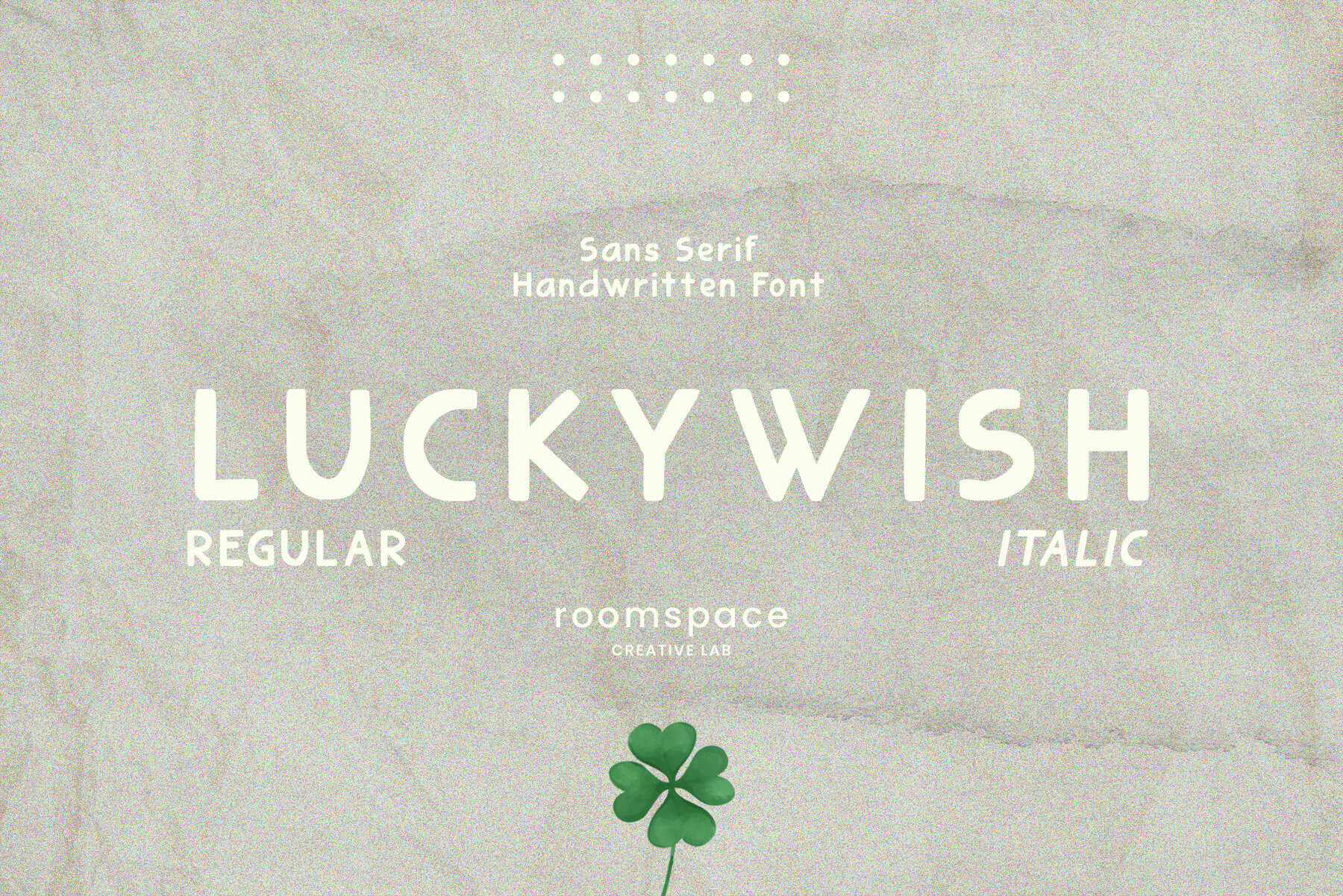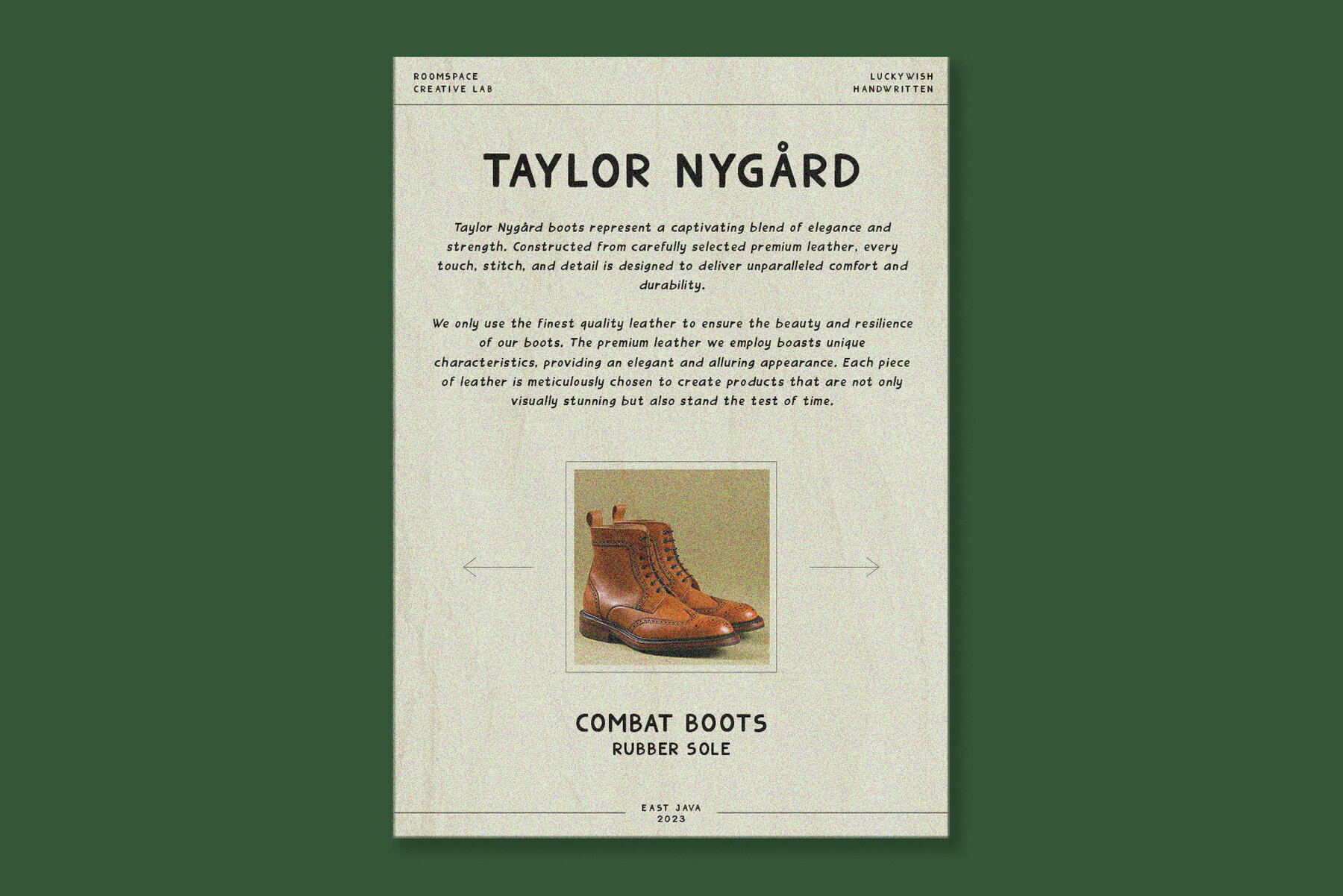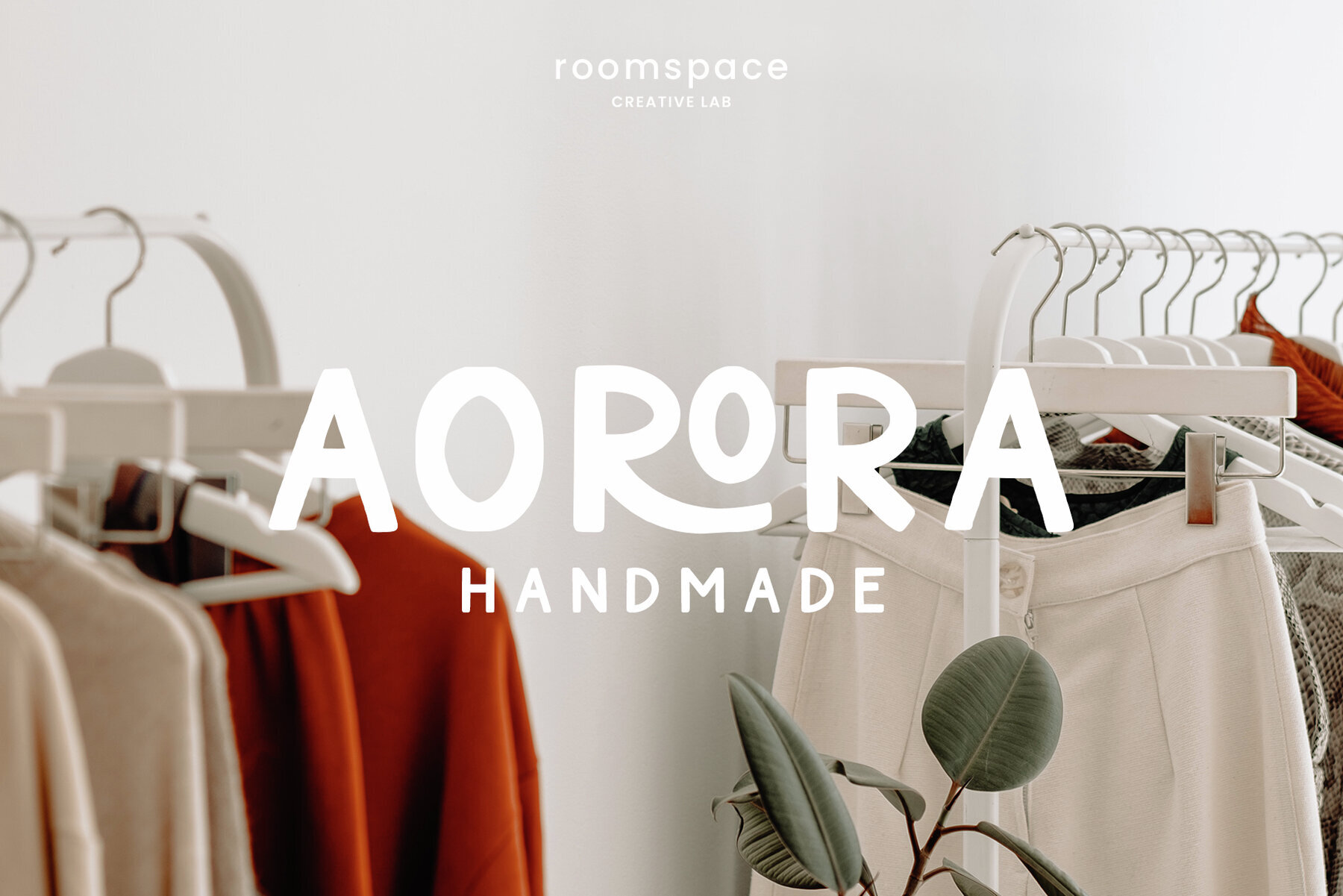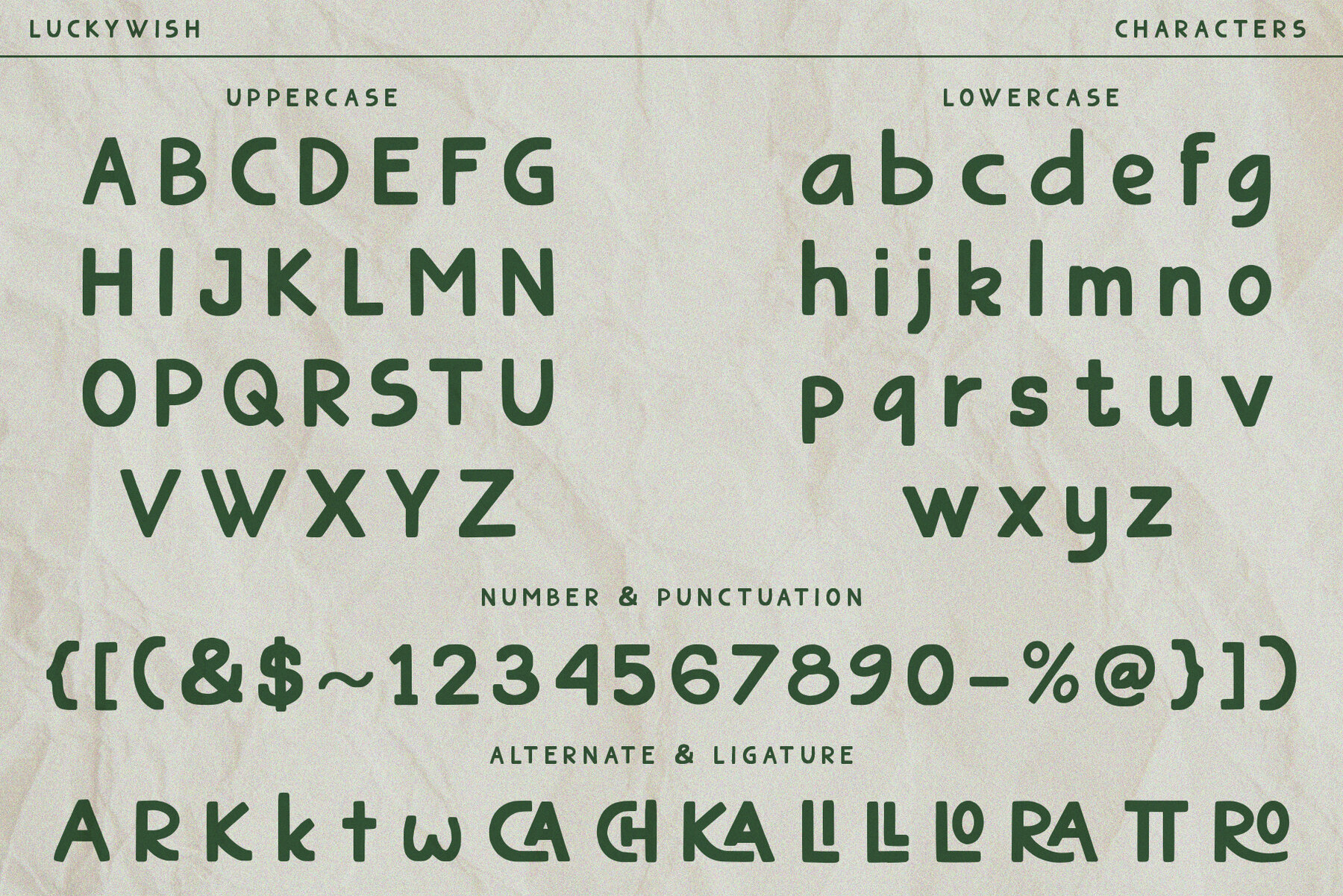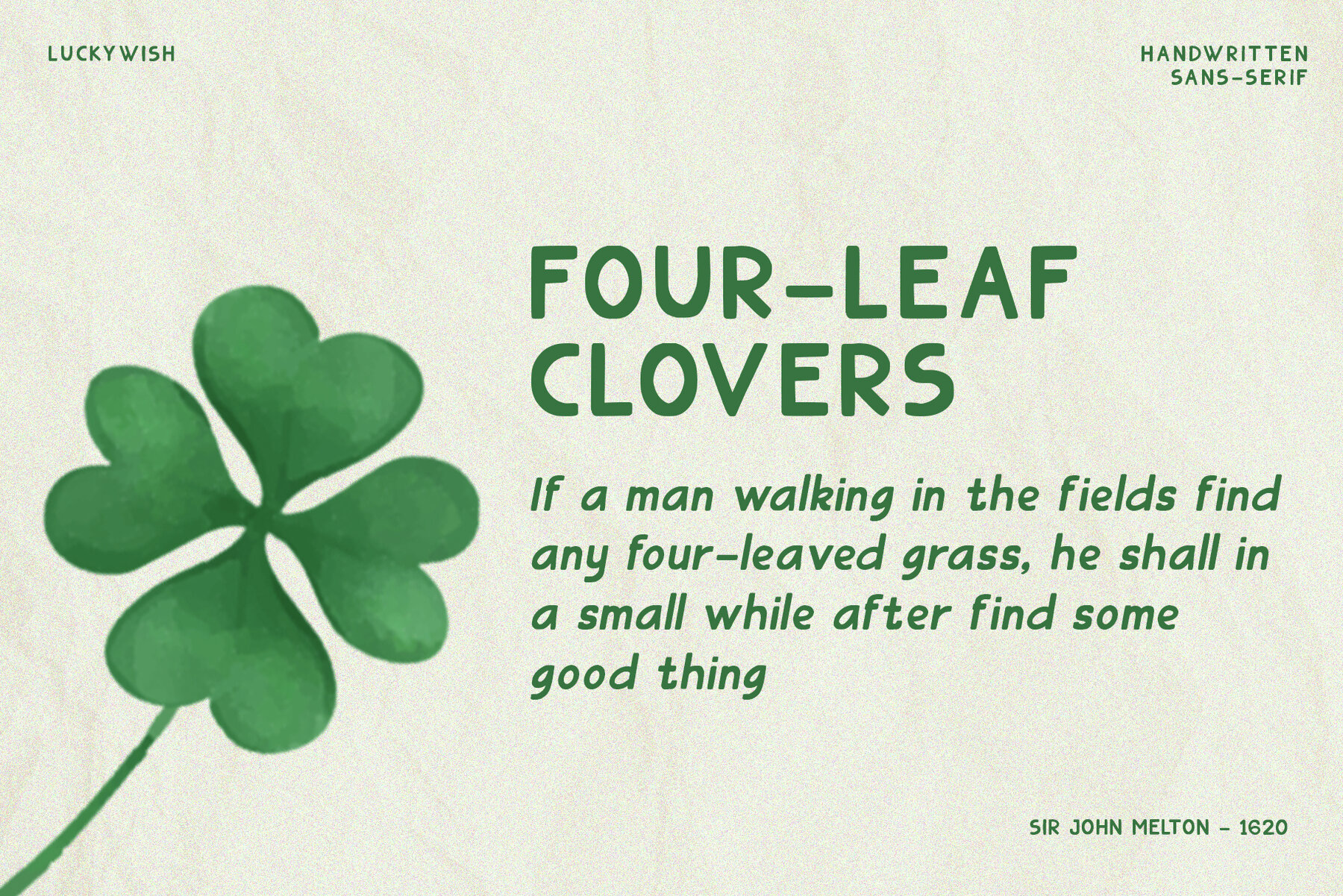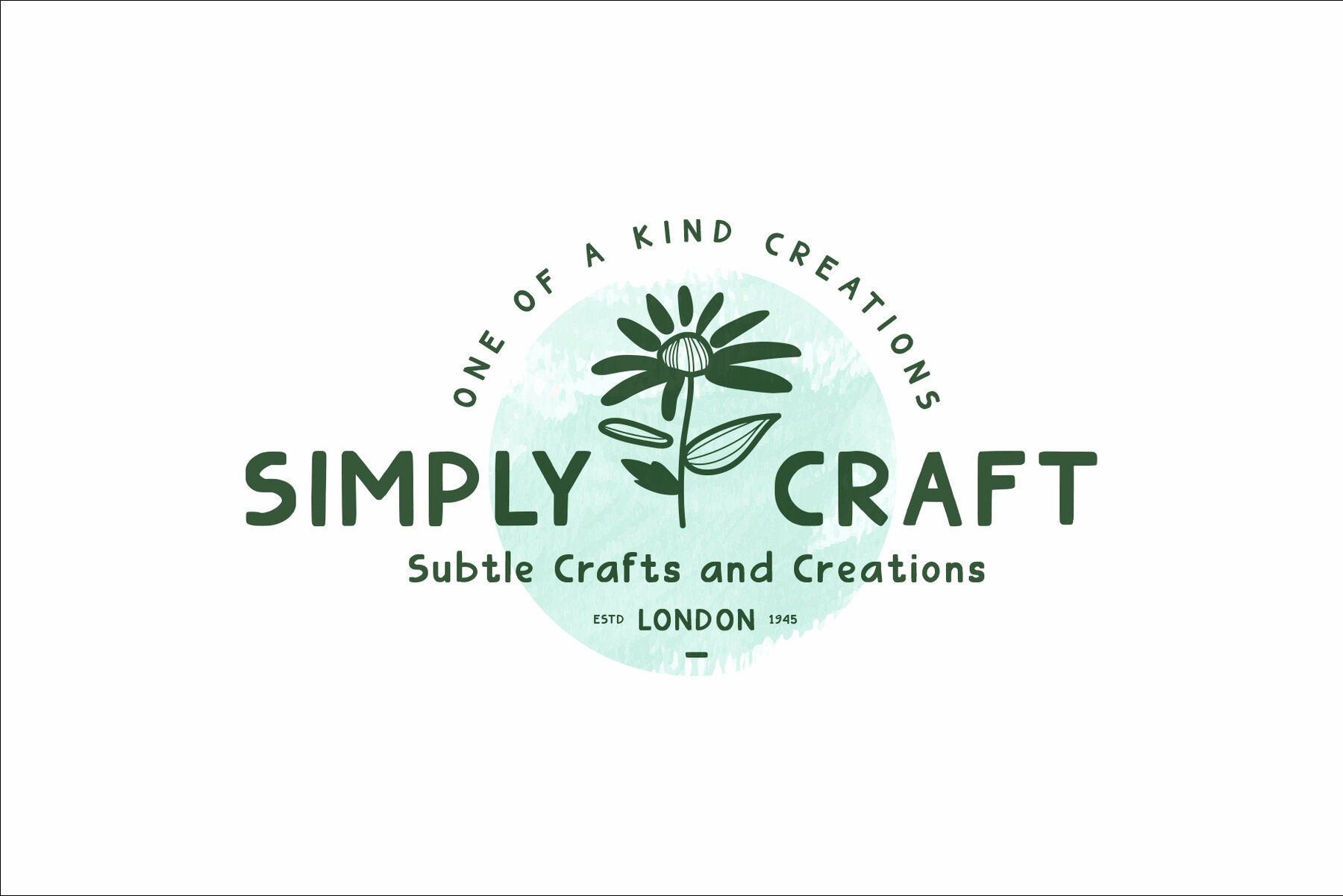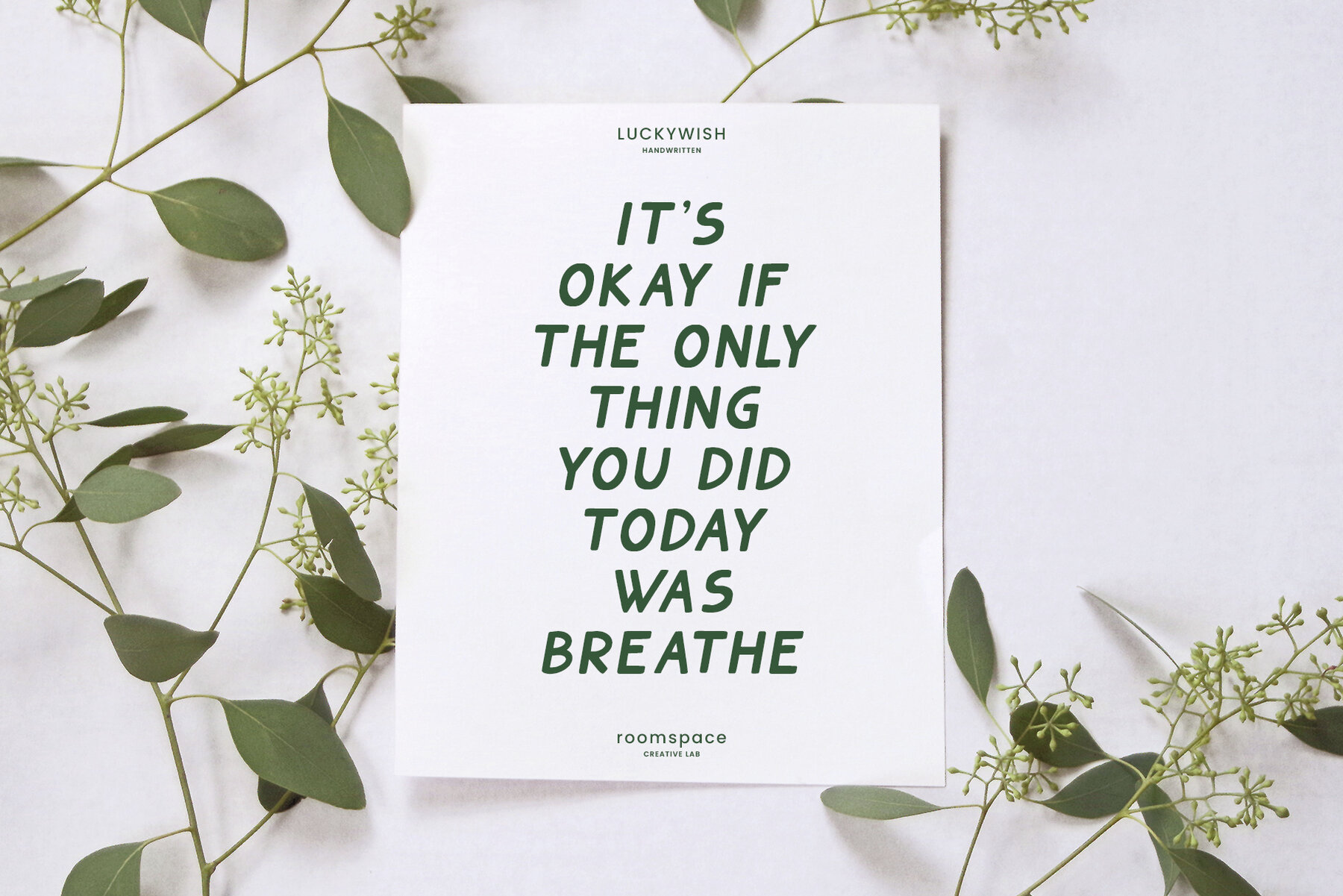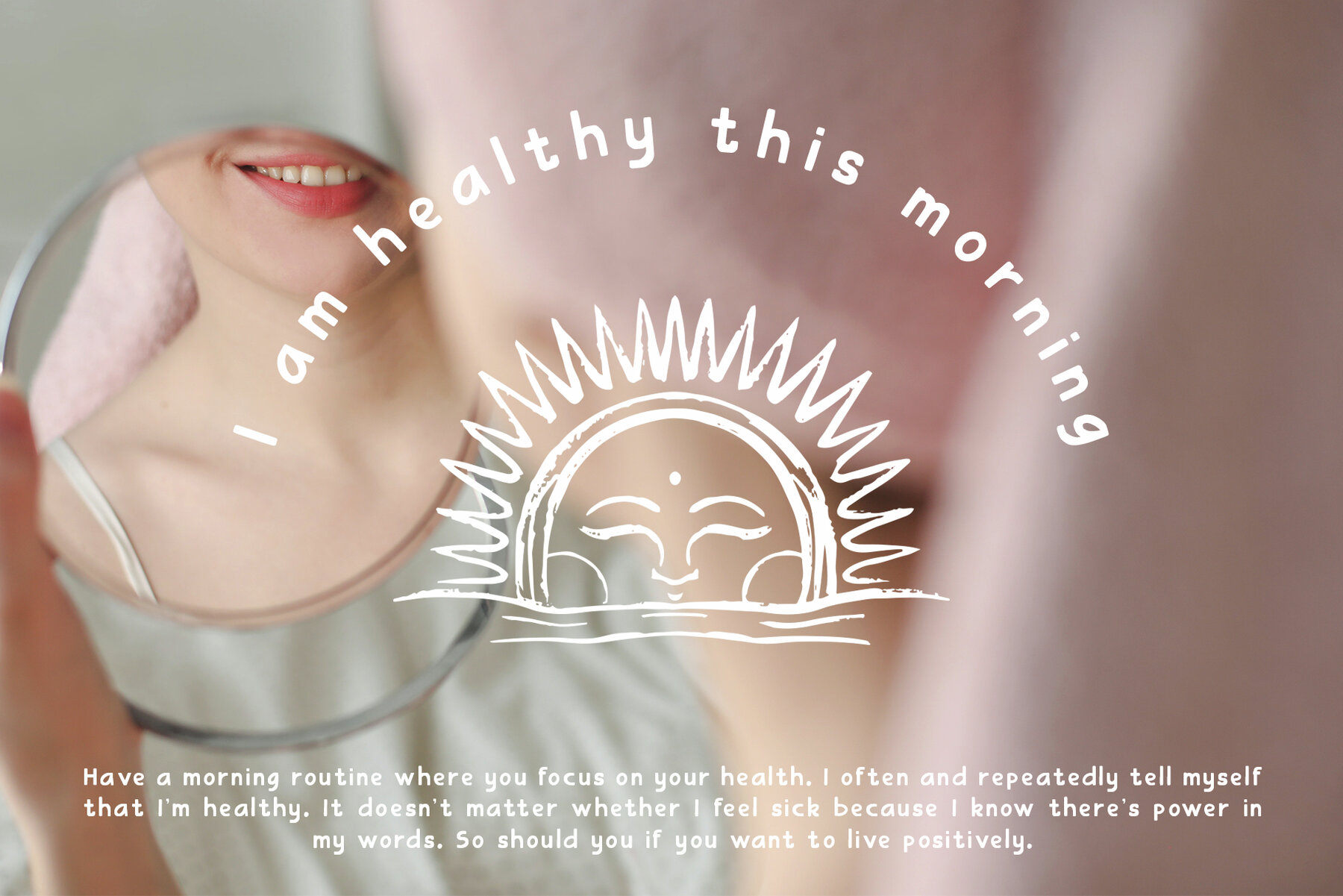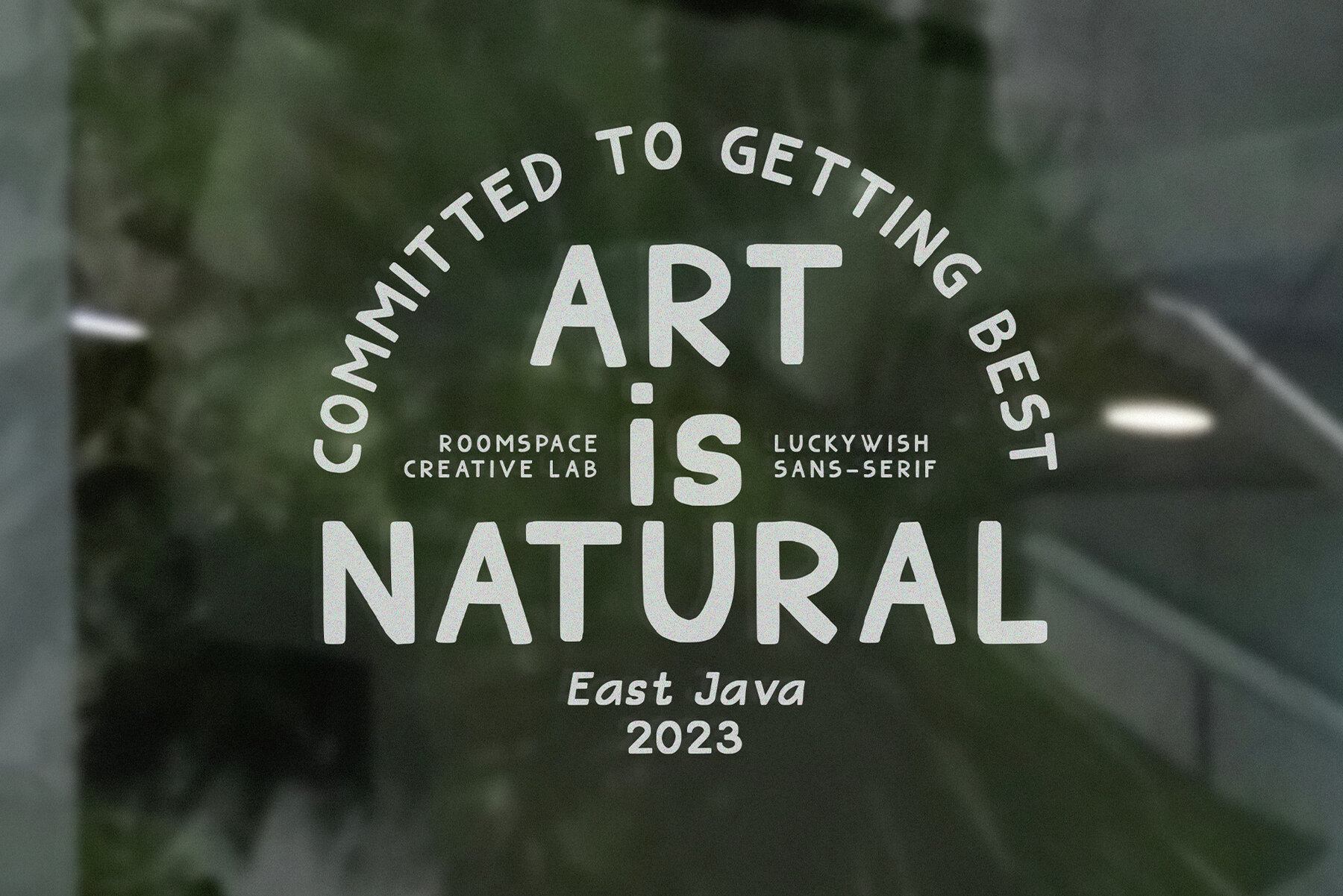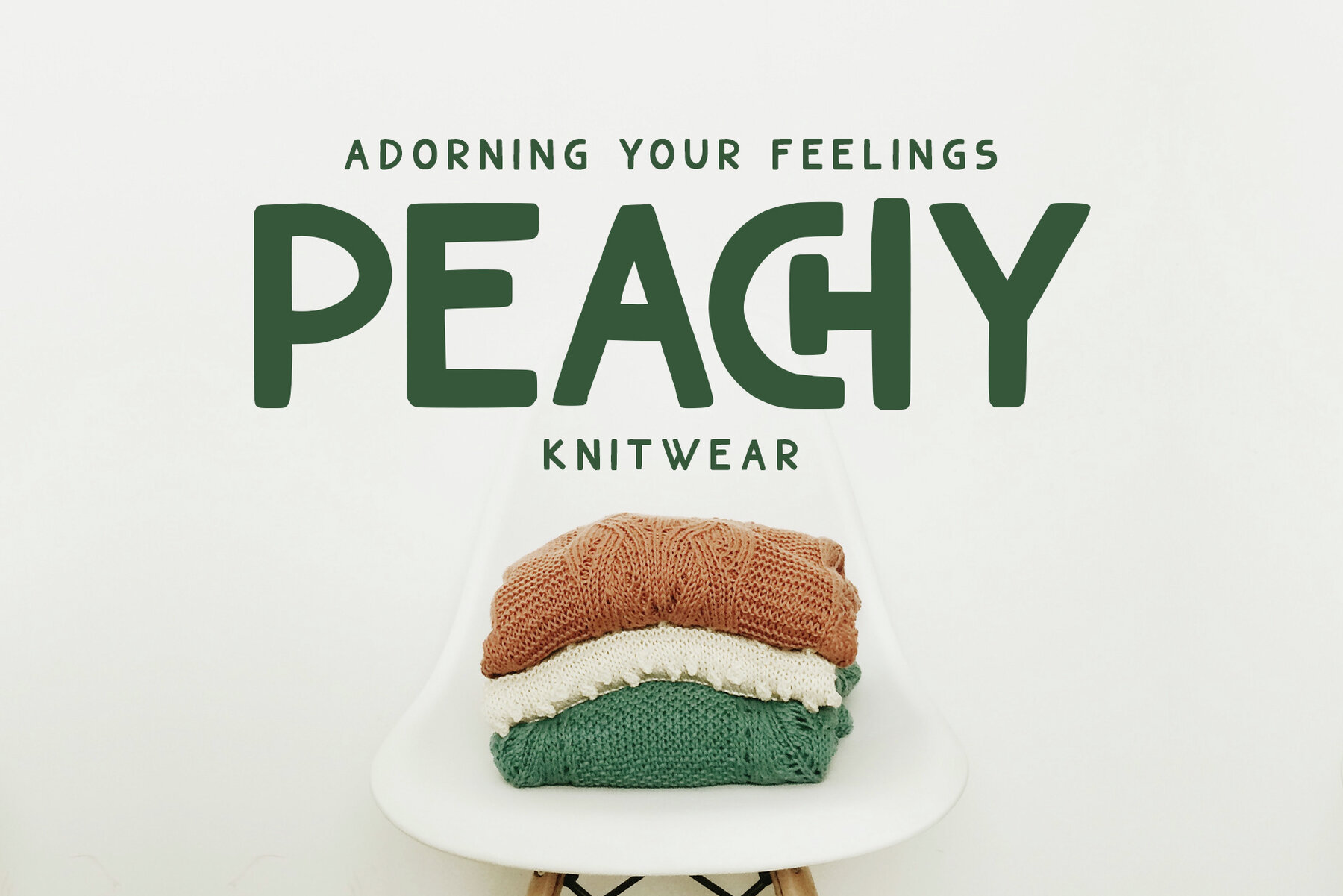
Luckywish Font
Welcome to the world of Luckywish Sans-Serif Handmade Font, a special offering born from hands full of creativity and love. Combining the art of handwriting with the simplicity of a sans-serif, Luckywish font offers a magical script that fulfills all your wishes. Luckywish is a symbol of hope that shines through every stroke found in each character. Crafted with heartfelt dedication, this font showcases the natural beauty of handwriting, bringing warmth and joy to every design composition. Armed with a pen and imagination, Luckywish exudes a unique charm. Its relaxed and delicately intertwined style brings a friendly and inviting ambiance to every formed sentence. When used, this font will infuse happiness and a fresh spirit into every project you undertake. Luckywish is more than just a font; it's a loyal partner to designers, writers, and creators alike. With its sans-serif characteristics, this font is easy to use and suitable for a variety of creative projects, from logo designs to posters, from wedding invitations to company branding. In the palm of your hand, Luckywish offers a perfect balance between boldness and delightful gentleness. Each character is meticulously crafted to provide unparalleled harmony in every usage. It's time to let your hopes and imagination flourish with Luckywish. Let this font bring joy and inspiration into your design world. Get ready to witness your words and messages transform into mesmerizing works of art that capture hearts. Be part of this magical journey with Luckywish. Get the font now and enjoy limitless creativity with an unmatched personal touch. What are you get?